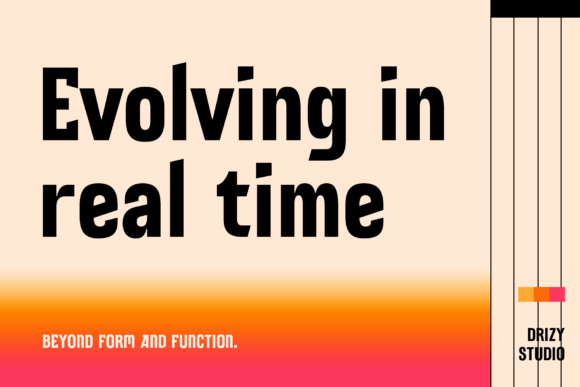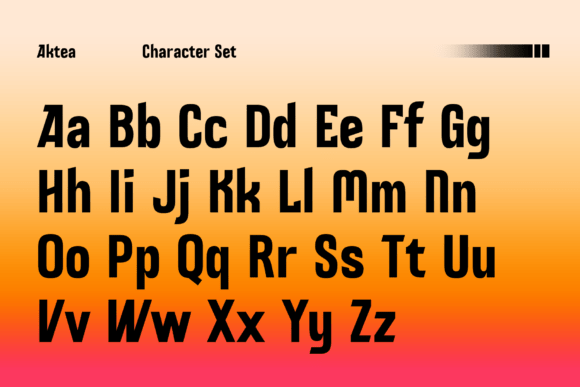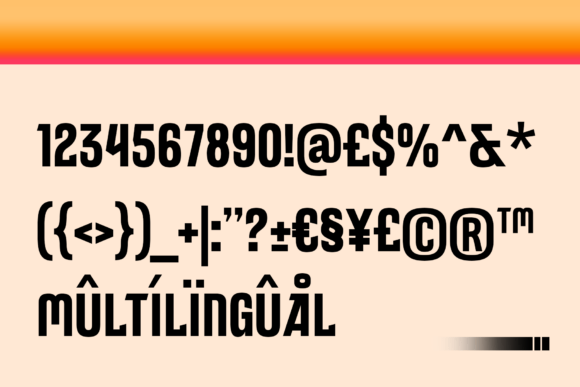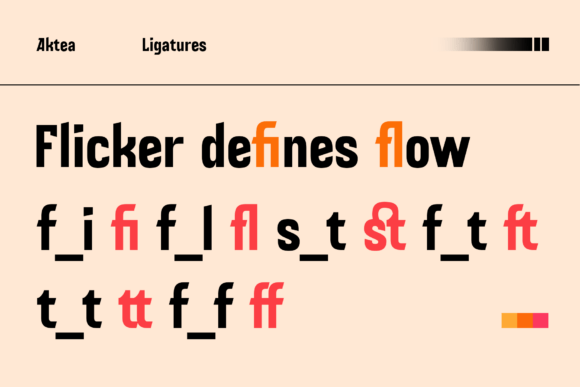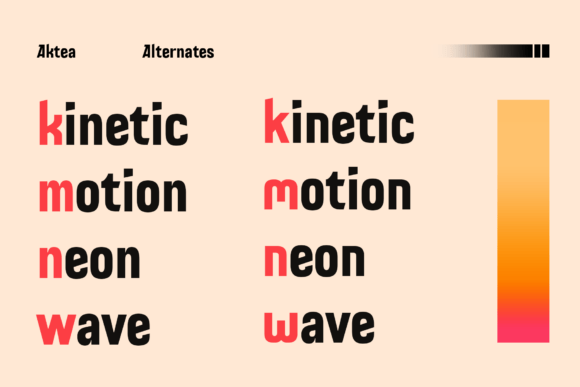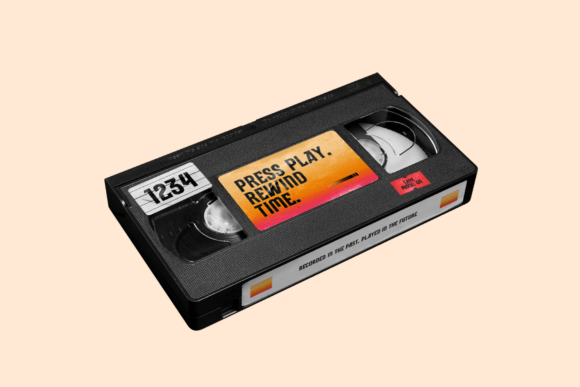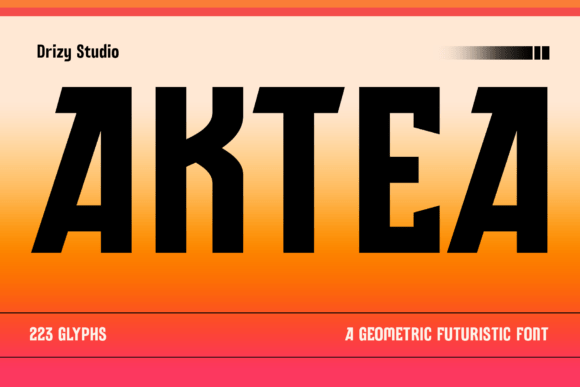
Aktea Font: A Geometric Vision of the Future
Step into the next dimension of design with the Aktea font, a geometric, futuristic typeface meticulously crafted to capture the essence of high-tech innovation and sci-fi aesthetics. This Aktea typeface is defined by its clean, minimalistic letterforms and sharp, industrial angles that suggest technological advancement and mechanical precision.
Key Features of Aktea Font
The Aktea font boasts an impressive array of features that make it an ideal choice for designers and crafters looking to create a cutting-edge visual identity. Some of its key features include:
• Geometric Design: The Aktea font relies on simple geometric shapes like circles and squares, ensuring a clean and minimalistic look that exudes modernity and sophistication.
• High Legibility: The font’s design prioritizes legibility, making it perfect for use in motion graphics, digital billboards, and other applications where clarity is crucial.
• Versatility: With 223 glyphs, the Aktea font offers a wide range of possibilities for creative expression, from high-energy cyberpunk artwork to sleek corporate identities for startups.
• Industrial Angles: The font’s sharp, industrial angles evoke a sense of technological advancement and mechanical precision, making it ideal for tech branding, gaming UI design, and futuristic cinematic posters.
Applications of Aktea Font
The Aktea font is designed to make a statement, and its versatility makes it suitable for a wide range of applications, including:
• Tech Branding: Use the Aktea font to create a cutting-edge visual identity for your tech brand, conveying innovation, modernity, and sophistication.
• Gaming UI Design: The font’s clean lines and geometric shapes make it perfect for gaming UI design, adding a touch of futurism and high-tech flair to your game’s interface.
• Futuristic Cinematic Posters: Create eye-catching posters for your sci-fi movie or series with the Aktea font, evoking a sense of otherworldliness and technological advancement.
• Cyberpunk Artwork: The Aktea font is a natural fit for cyberpunk artwork, adding a touch of high-tech sophistication to your designs.
• Corporate Identities: Use the Aktea font to create a sleek and modern visual identity for your startup or corporation, conveying innovation and forward-thinking.
Design Tips and Tricks
To get the most out of the Aktea font, consider the following design tips and tricks:
• Pair with Neon Colors: Combine the Aktea font with neon color gradients and dark backgrounds to create a striking visual effect that screams futuristic style.
• Experiment with Motion Graphics: The Aktea font’s high legibility makes it perfect for motion graphics; experiment with different animations and effects to create eye-catching visuals.
• Mix with Organic Shapes: Combine the Aktea font with organic shapes and natural textures to create an interesting contrast between technology and nature.
The Aktea font is a powerful tool for designers and crafters looking to create a cutting-edge visual identity that screams innovation and modernity. With its geometric design, high legibility, and versatility, this font is perfect for a wide range of applications, from tech branding to cyberpunk artwork. By following the design tips and tricks outlined above, you can unlock the full potential of the Aktea font and take your designs to the next level.